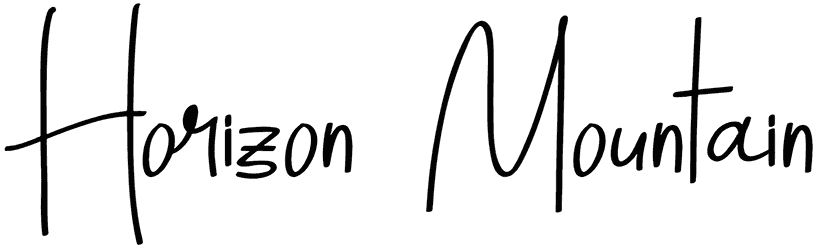
Horizon Mountain Font
If you think that your new design will be great with casual and friendly lettering, you are going to be amazed by this handwritten font. The Horizon Mountain font will give a modern and cool style to your words and make…
If you think that your new design will be great with casual and friendly lettering, you are going to be amazed by this handwritten font. The Horizon Mountain font will give a modern and cool style to your words and make them more engaging. If it’s a letter for your friend, a business card for a journalist, or anything else, this item will work well even without numerals.